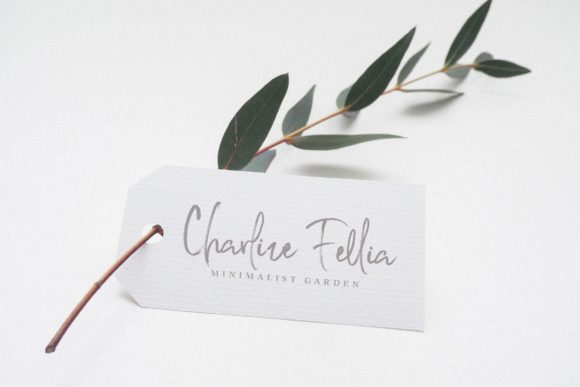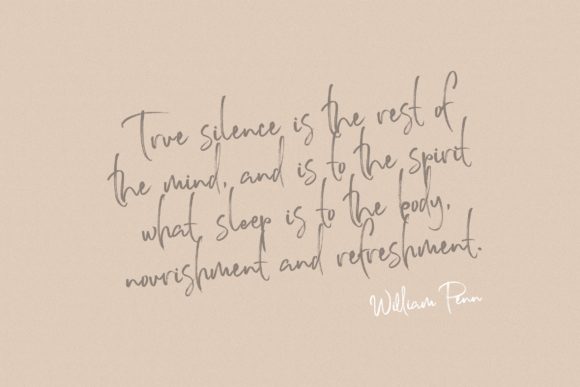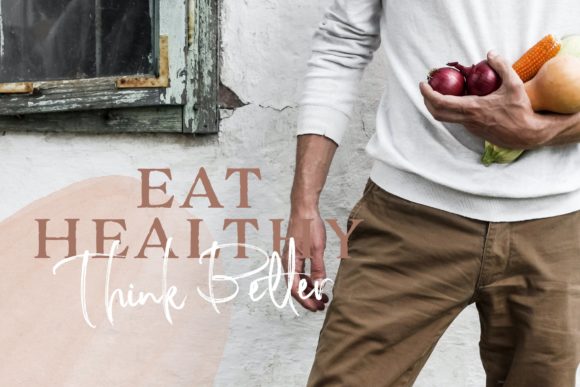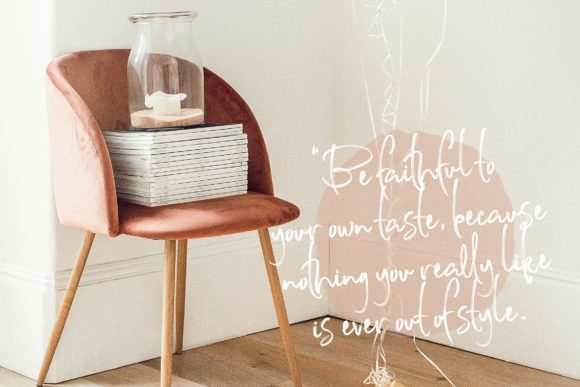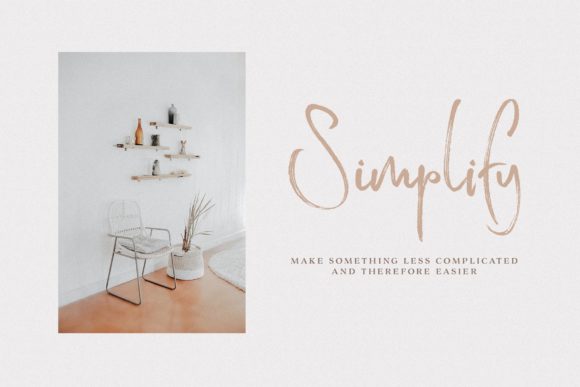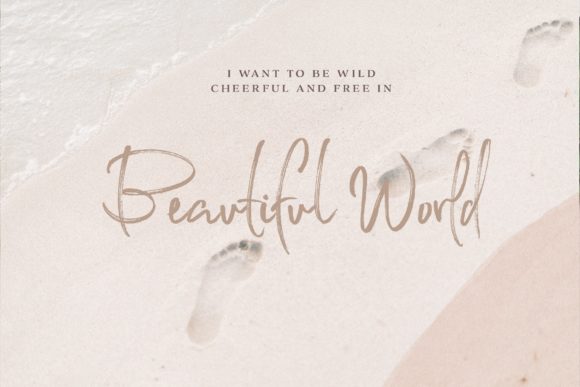
Dellfried Font: Elevate Your Design with Romantic Brushed Calligraphy
Are you looking for a font that adds a touch of luxury and romance to your design projects? Look no further than Dellfried, a stunning brushed calligraphy typeface that is sure to make your designs stand out. With its unique and elegant characters that dance along the baseline, Dellfried is the perfect choice for designers and crafters who want to add a touch of sophistication to their work.
What is Dellfried Font?
Dellfried is a romantic and sweet brushed calligraphy typeface that features characters that are carefully crafted to create a sense of movement and fluidity. The font’s unique design makes it perfect for adding a touch of luxury and elegance to any design project, from wedding invitations and branding materials to packaging and advertising.
Key Features of Dellfried Font
- Romantic and Sweet Design: Dellfried features a romantic and sweet design that is perfect for creating elegant and sophisticated designs.
- Brushed Calligraphy Style: The font’s brushed calligraphy style gives it a unique and handmade feel that is perfect for adding a touch of personality to your designs.
- Characters that Dance along the Baseline: The characters in Dellfried are carefully crafted to create a sense of movement and fluidity, making it perfect for creating dynamic and engaging designs.
- Luxury and Elegant Feel: Dellfried has a luxury and elegant feel that makes it perfect for high-end design projects, such as wedding invitations, branding materials, and packaging.
How to Use Dellfried Font in Your Design Projects
Dellfried is a versatile font that can be used in a variety of design projects, including:
- Wedding Invitations: Add a touch of romance and elegance to your wedding invitations with Dellfried.
- Branding Materials: Use Dellfried to create luxurious and sophisticated branding materials, such as logos, business cards, and letterheads.
- Packaging: Add a touch of elegance and sophistication to your packaging designs with Dellfried.
- Advertising: Use Dellfried to create eye-catching and engaging advertising materials, such as billboards, posters, and social media ads.
Why Choose Dellfried Font?
There are many reasons why Dellfried is a great choice for designers and crafters, including:
- Unique and Elegant Design: Dellfried features a unique and elegant design that is sure to make your designs stand out.
- High-Quality Craftsmanship: The font is carefully crafted to ensure that it is of the highest quality and meets the needs of designers and crafters.
- Easy to Use: Dellfried is easy to use and can be easily integrated into your design projects.
- Versatile: The font is versatile and can be used in a variety of design projects, from wedding invitations to branding materials.
Tips for Getting the Most out of Dellfried Font
Here are some tips for getting the most out of Dellfried:
- Use it with Other Fonts: Dellfried can be paired with other fonts to create a unique and interesting design.
- Experiment with Different Sizes and Colors: Experiment with different sizes and colors to find the perfect combination for your design.
- Use it to Create a Sense of Movement: Use Dellfried to create a sense of movement and fluidity in your designs.
- Pay Attention to Kerning and Leading: Pay attention to kerning and leading to ensure that your text is easy to read and visually appealing.
| Font Name | Dellfried Font |
| Author | getstudio |
Dellfried is a stunning brushed calligraphy typeface that is sure to add a touch of luxury and romance to any design project. With its unique and elegant design, high-quality craftsmanship, and ease of use, Dellfried is a great choice for designers and crafters who want to create sophisticated and engaging designs. Whether you’re creating wedding invitations, branding materials, packaging, or advertising, Dellfried is the perfect font for adding a touch of elegance and sophistication to your work.